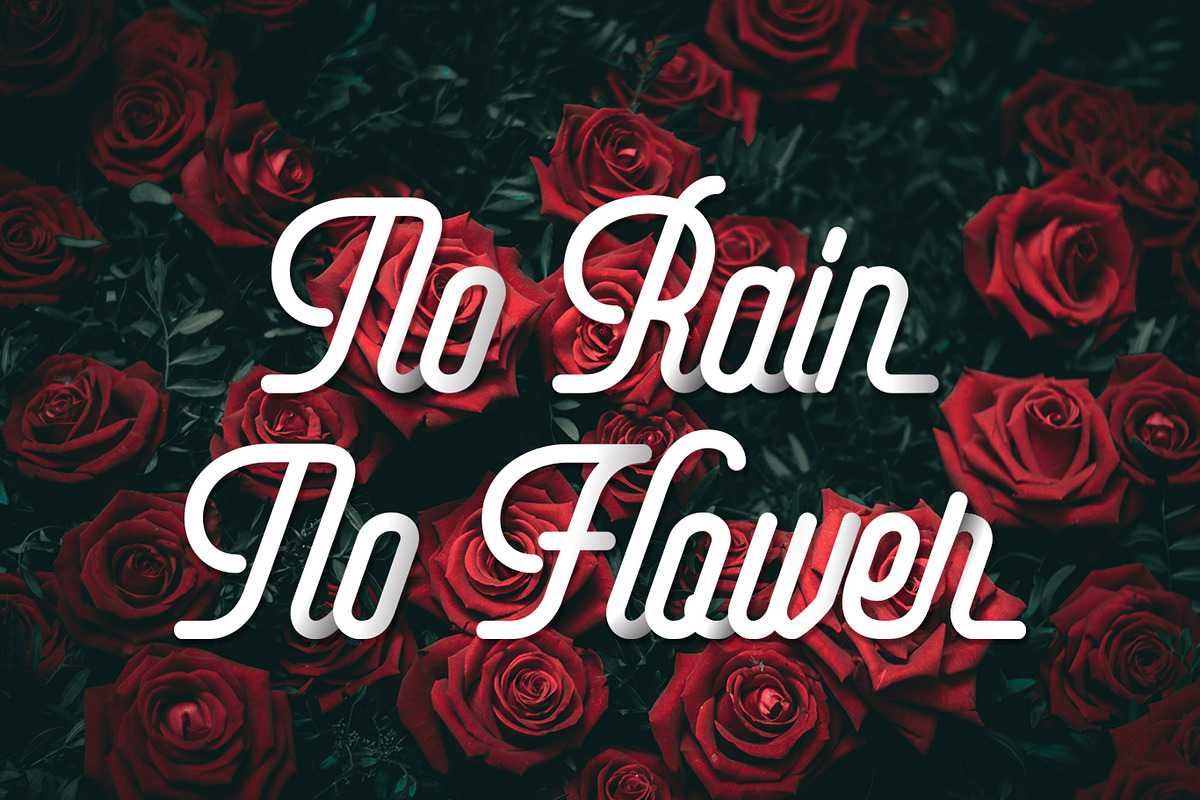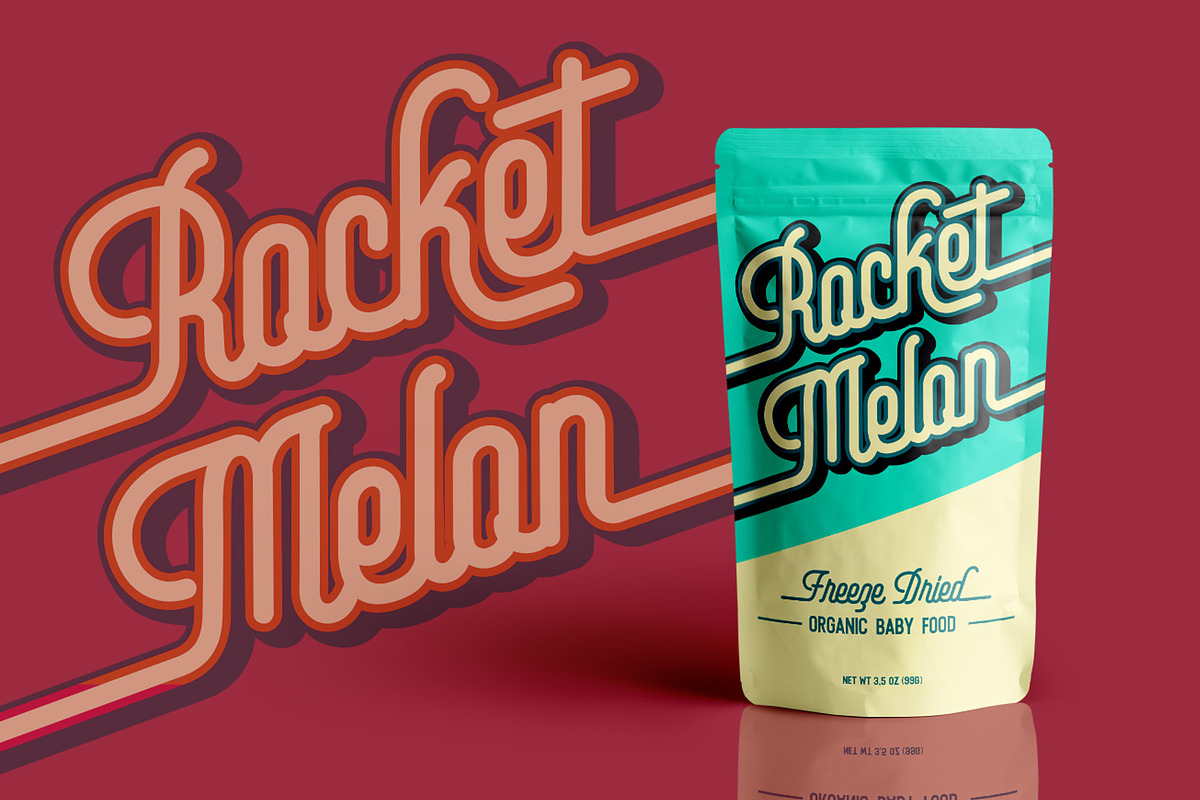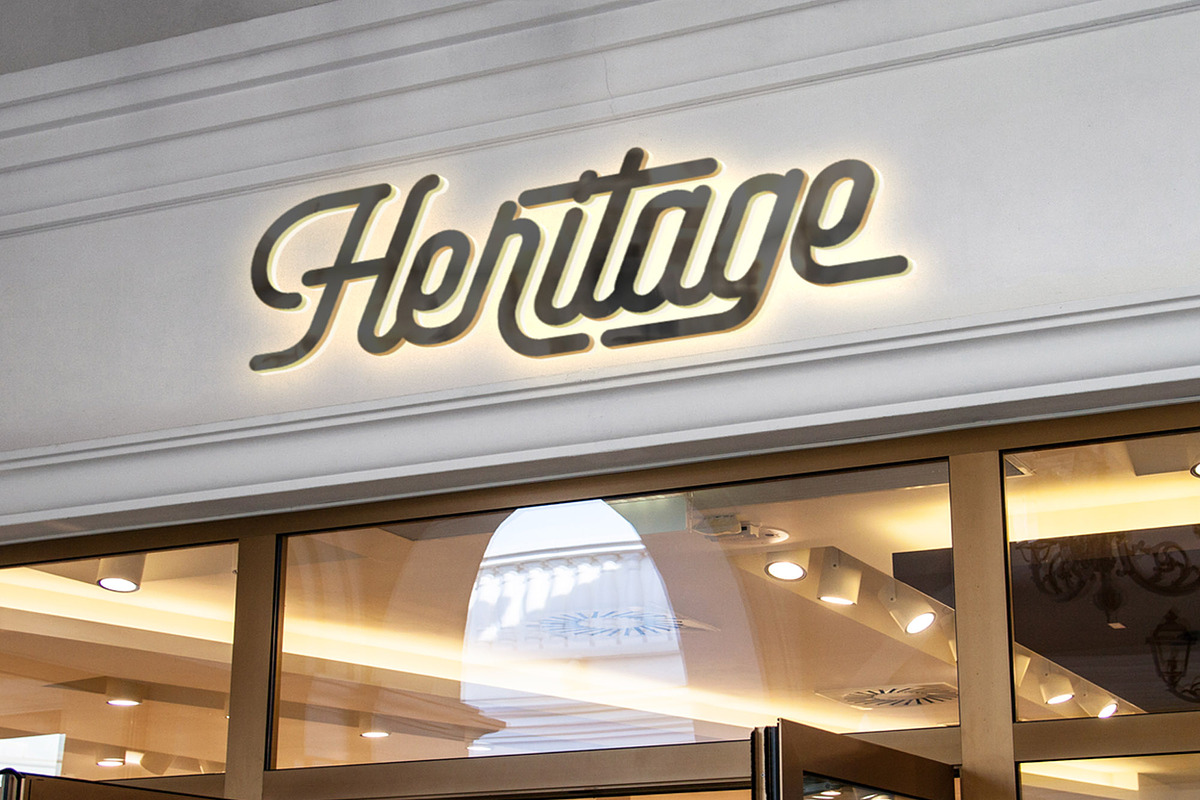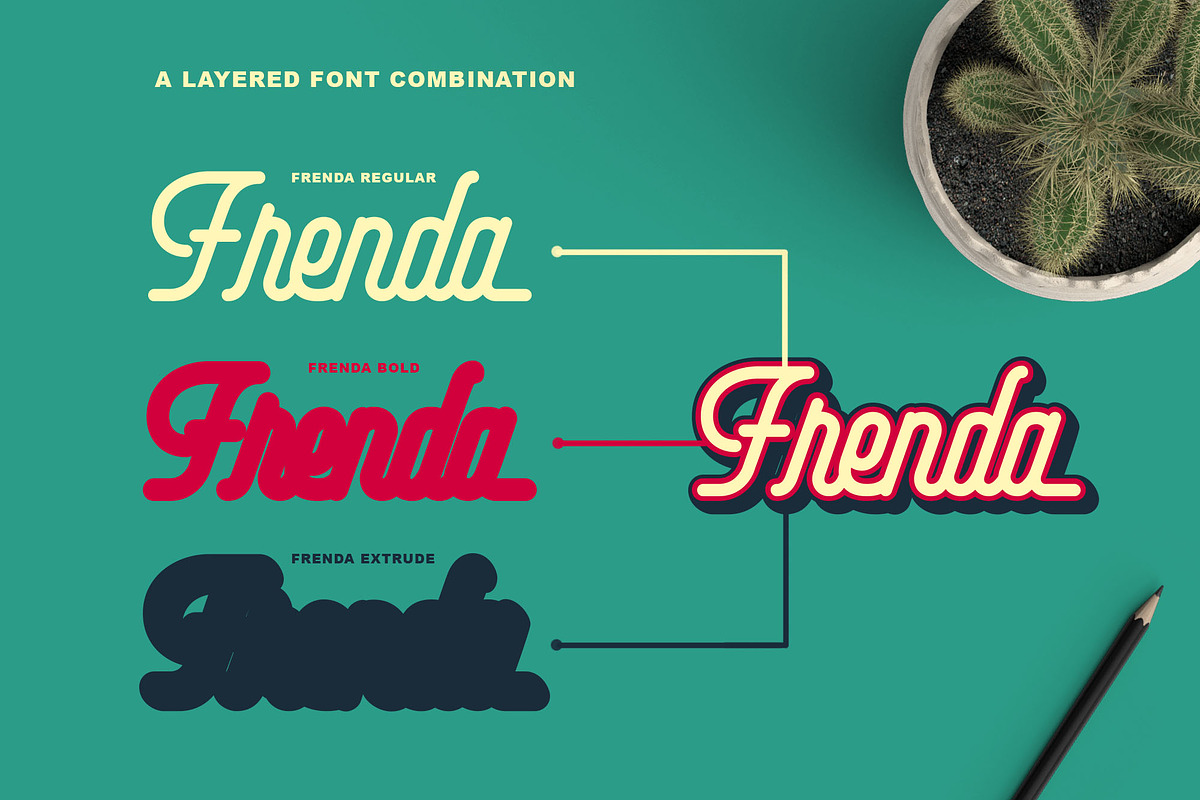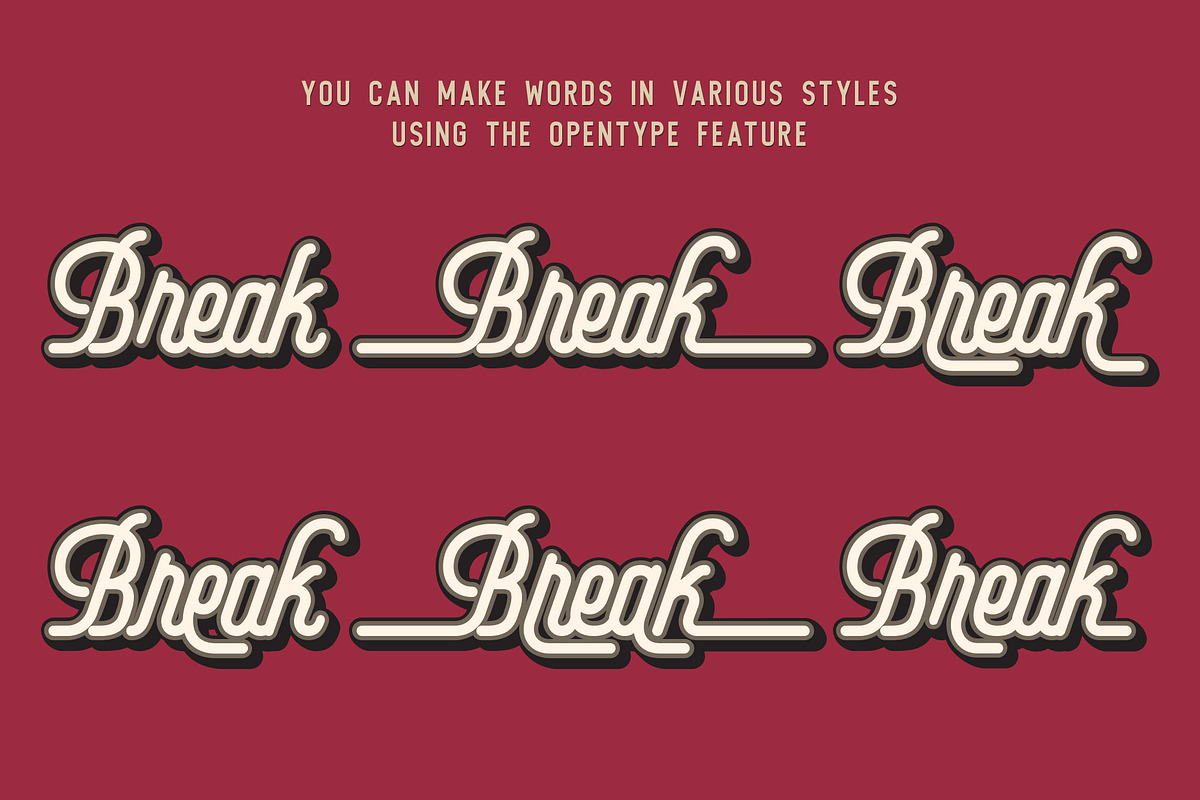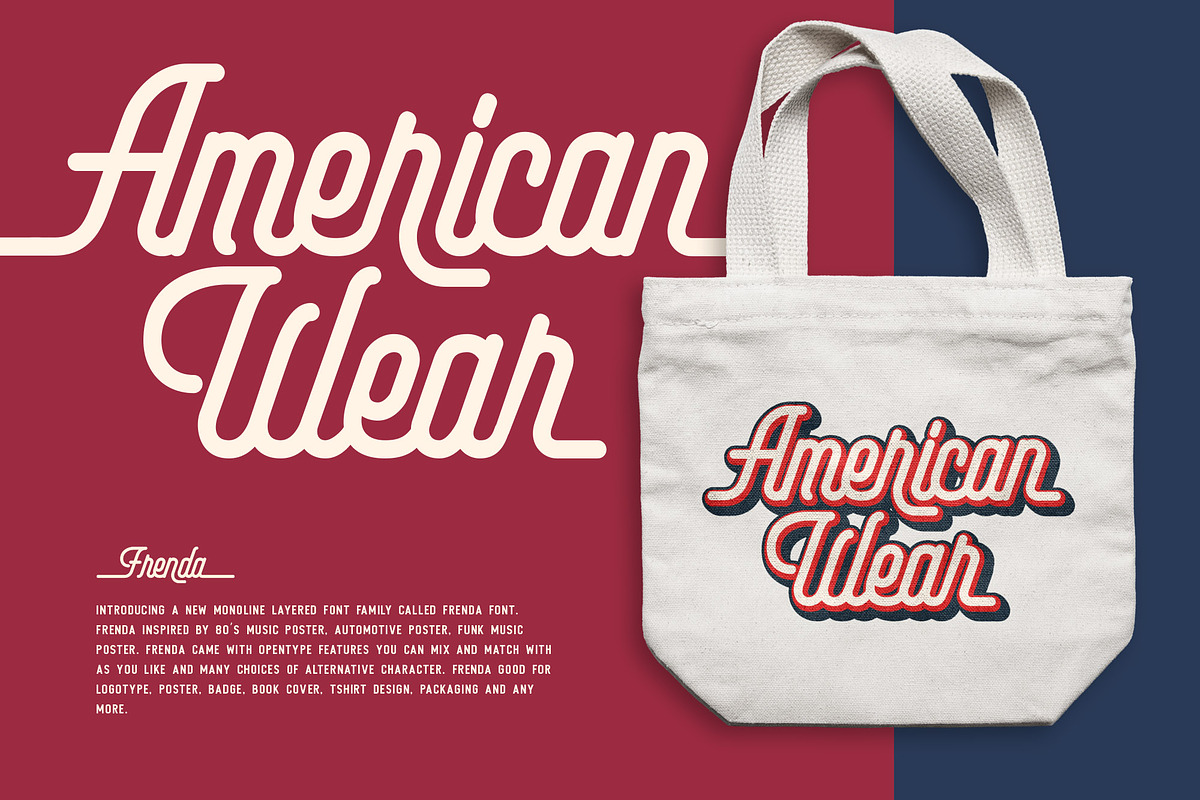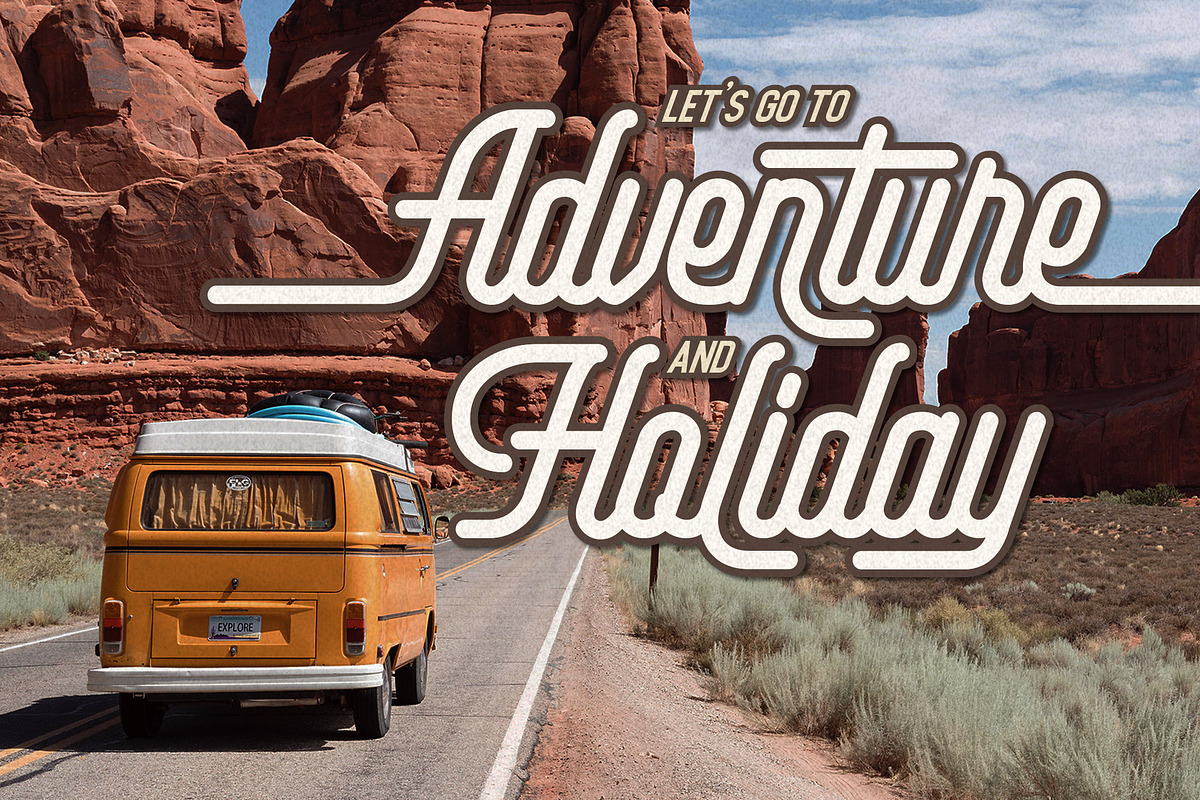
Frenda Monoline Layered Font
Introducing a new monoline layered font family called Frenda font. Frenda inspired by 80's music poster, automotive poster, funk music poster. Frenda came with opentype features you can mix and match with as you like and many choices of alternative character. Frenda good for logotype, poster, badge, book cover, tshirt design, packaging and any more.
- Frenda Regular
- Frenda Bold
- Frenda Extrude